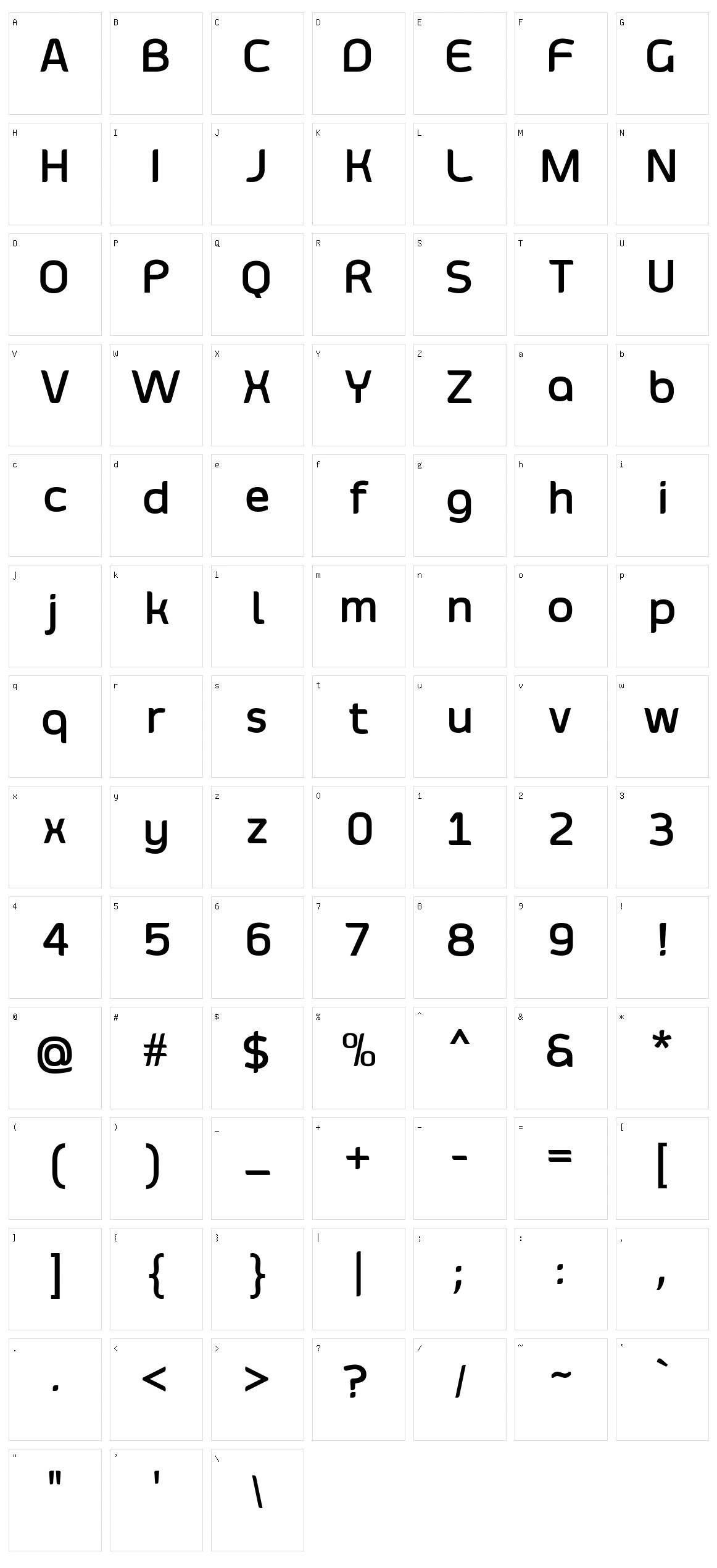
The free font Smoolthan is carefully designed by 7NTypes, showcasing a thoughtful balance of creativity and usability and falls under the Sans serif font style. When you download the ZIP file, it contains only 291.07 KB of font files, making it lightweight and quick to download. Please review the license details below to understand permitted usage and distribution rights. If license information is not available, we recommend using this font for personal projects only or contacting the author directly for commercial usage permissions.